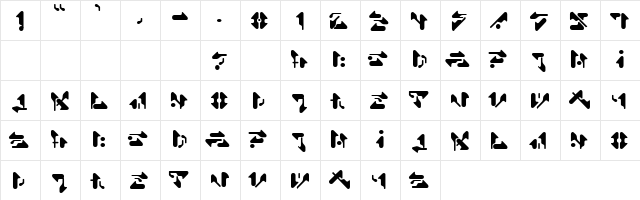
Shamen Remix Normal
Design Context for Shamen Remix Typeface
Shamen Remix is a composed and adaptable typeface that performs quietly and consistently across a wide range of design contexts.